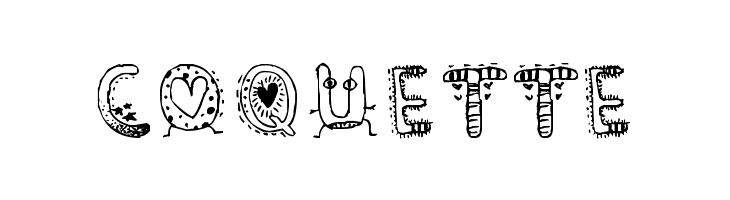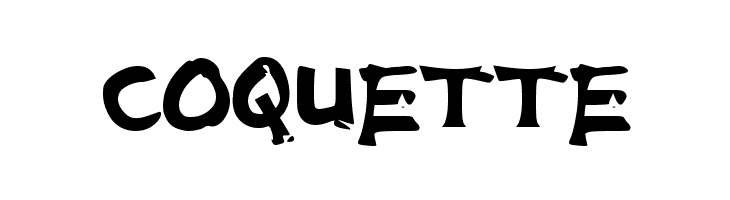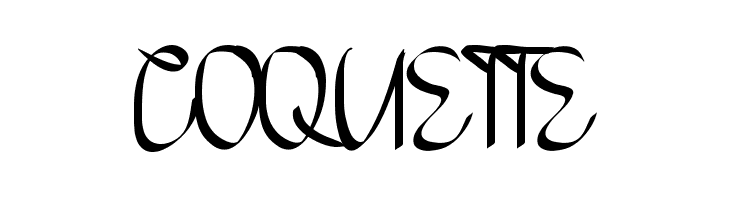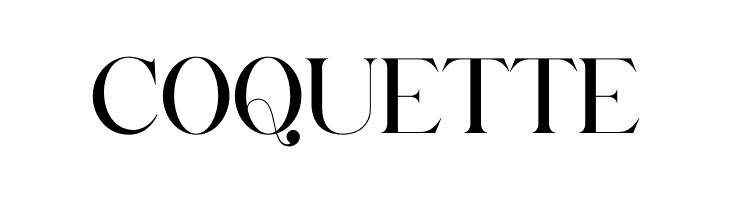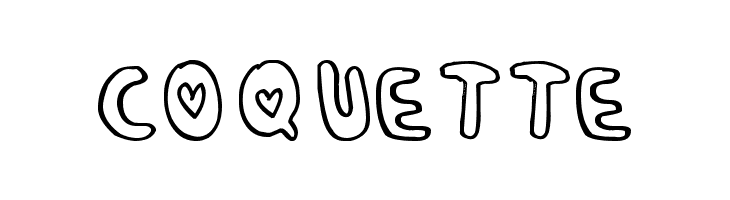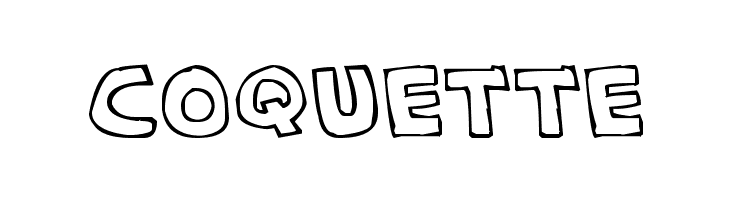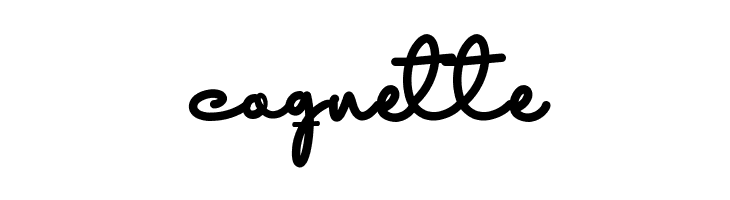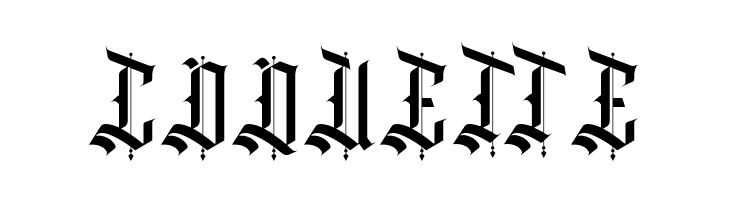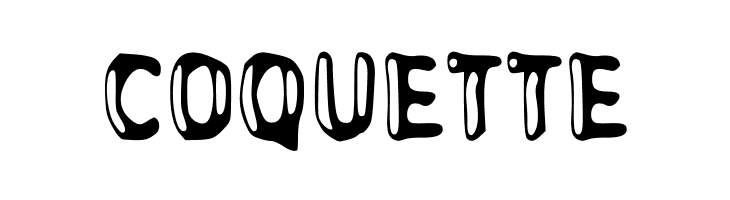
A casual, playful handwritten font with smooth, flowing curves and connected letters.
A bold, playful font with a distressed, hand-crafted look.
A bold, playful, hand-drawn font with dynamic, irregular characters.
A bold, gothic-style blackletter font with intricate details and a medieval flair.
A bold, Gothic blackletter font with intricate detailing and a historic feel.
A refined serif font with high contrast and elegant curves.
A playful, bubbly font with irregular, organic shapes and a whimsical style.
A dynamic, flowing script font with elegant cursive letterforms.
A modern, elegant handwritten font with fluid strokes and a sophisticated style.
Playful handwritten font with rounded edges.
A playful, casual handwritten font with fluid strokes and a lively feel.
A fluid and dynamic handwritten font with smooth curves and natural elegance.
A dynamic, cursive script font with flowing, interconnected letters and varied stroke weights.
A dynamic, expressive handwritten font with fluid, sweeping strokes.
A playful, hand-drawn font with bold outlines and a cartoonish style.
A playful, hand-drawn font with bold, uneven strokes and a whimsical charm.
Hand-drawn, doodle-style dingbat illustrations with a playful vibe.
A playful, hand-drawn font with bold outlines and a cartoonish style.
A bold, sketchy, hand-drawn font with a playful and artistic style.
An ornate and decorative script font with intricate swirls and flourishes.
A playful, hand-drawn font with a sketch-like, textured appearance.
A playful, handwritten font with rounded, irregular letterforms.
A playful, handwritten font with smooth curves and consistent thickness.
A playful, hand-drawn font with a sketch-like, three-dimensional appearance.
A bold, playful handwritten font with thick strokes and a casual feel.
A playful, hand-drawn marker-style font with bold, rounded strokes.
A playful, hand-drawn font with a textured, artistic style.
A playful, heart-themed decorative font with a hand-drawn style.
A bold, hand-drawn font with a rustic, lively charm.
A playful, handwritten font with a casual and authentic feel.
A modern, decorative font with continuous line and geometric elements.